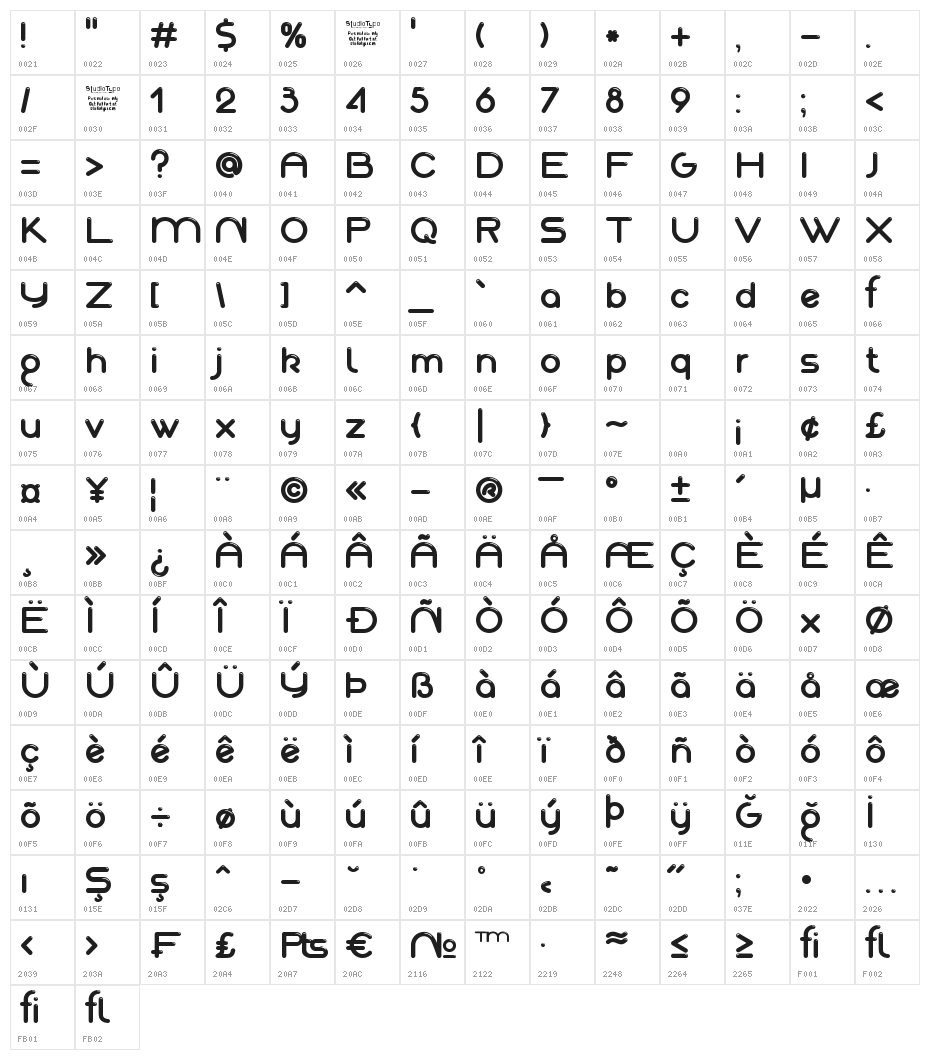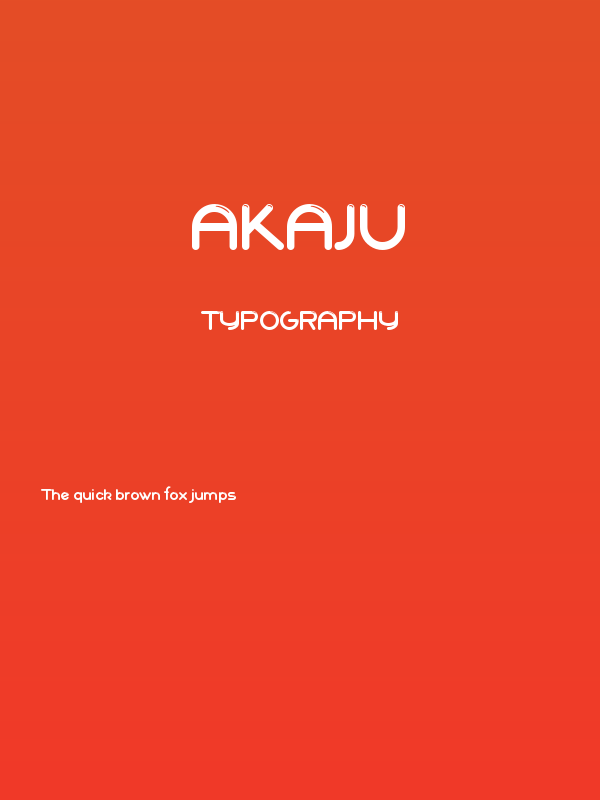
Akaju Font
Akaju Description
This font features a modern and playful design with rounded edges and a bold presence. The characters are evenly spaced, providing a clean and approachable look. The uppercase letters are uniform in height, while the lowercase letters maintain a consistent baseline with slight variations in ascender and descender lengths. The numerals are bold and easily readable, making them suitable for various applications. Special characters are designed with the same rounded style, ensuring a cohesive appearance across all glyphs. This font is ideal for projects that require a friendly and contemporary aesthetic.
Proposed ProjectsIdeal for branding, advertising, children's books, and digital media.